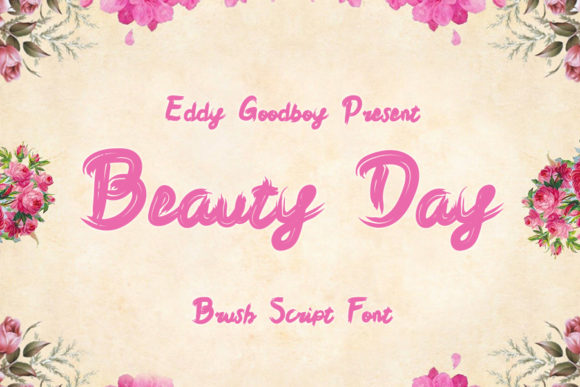
Venture into the realm of artistic expression with Beauty Day Font, a captivating script font family meticulously crafted by Eddygoodboy to awaken your creative spirit. This exceptional font exudes an air of elegance and charm, making it a perfect choice for those seeking to add a touch of individuality to their designs.
Unleash your imagination and let Beauty Day Font guide you through a world of limitless possibilities. Its graceful strokes and playful characters lend themselves effortlessly to a wide range of design projects, from heartfelt wedding invitations and thank-you cards to eye-catching logos and enchanting greeting cards.
Immerse yourself in the beauty of Beauty Day Font and discover the endless ways it can transform your creative visions into tangible masterpieces. Its versatility knows no bounds, seamlessly adapting to both digital and print media, ensuring your designs shine in any format.
With Beauty Day Font at your fingertips, you'll unlock a treasure trove of artistic potential. Its enchanting aura will captivate your audience, leaving them spellbound by the sheer elegance of your creations. Experience the joy of crafting designs that resonate with emotion and leave a lasting impression on all who behold them.
Step into the world of Beauty Day Font today and embark on a creative journey like never before. Let your imagination soar as you witness the transformative power of this exquisite font, turning ordinary designs into extraordinary works of art. Seize the opportunity to elevate your designs to new heights and leave an indelible mark on the world of creativity.